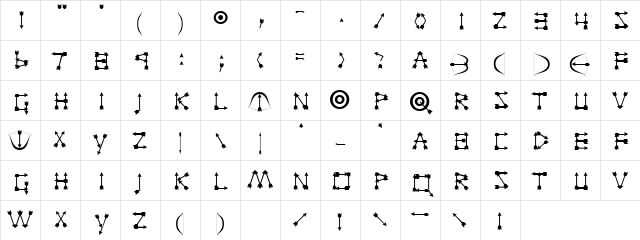
Zarrow Regular Free Font
Zarrow Regular
Design Context for Zarrow
Zarrow is a composed and adaptable typeface that performs quietly and consistently across a wide range of design contexts.
Pro Tip: Use Zarrow in both headline and body roles to test its range before committing to a single application.